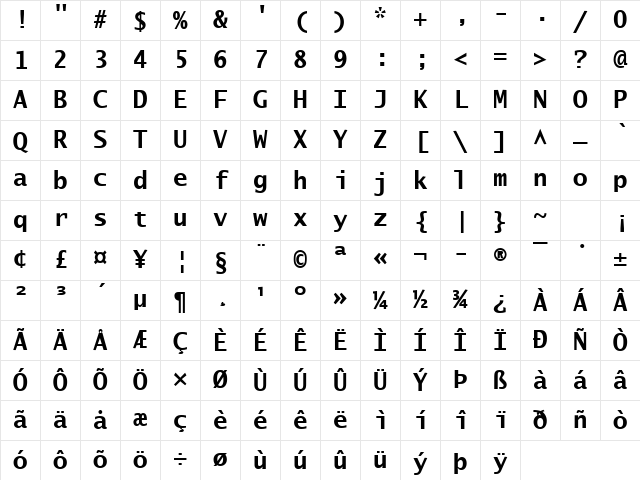
Complete Tangerine 2 Bold glyph index. Displaying only characters natively supported by Tangerine 2 Bold font.
Tangerine 2 is a composed and adaptable typeface that performs quietly and consistently across a wide range of design contexts. Its bold stroke weight gives it real presence on the page.